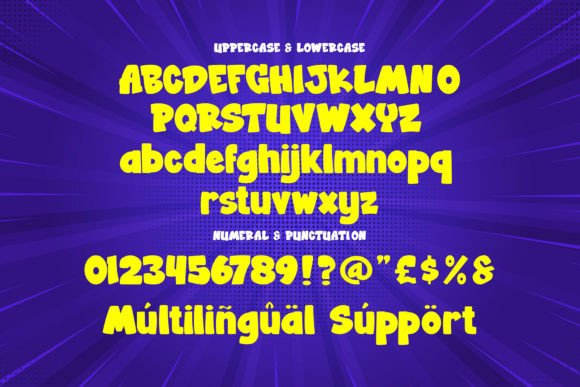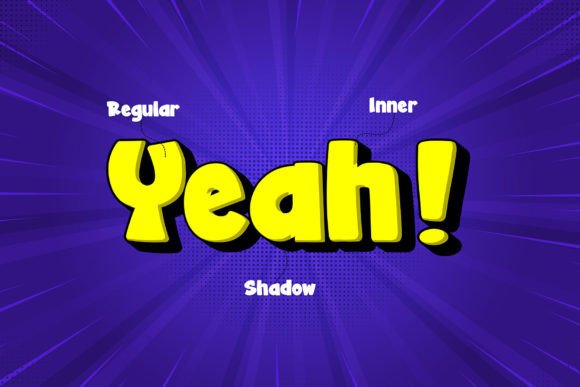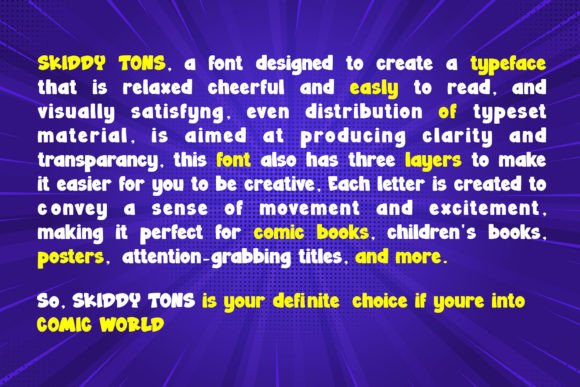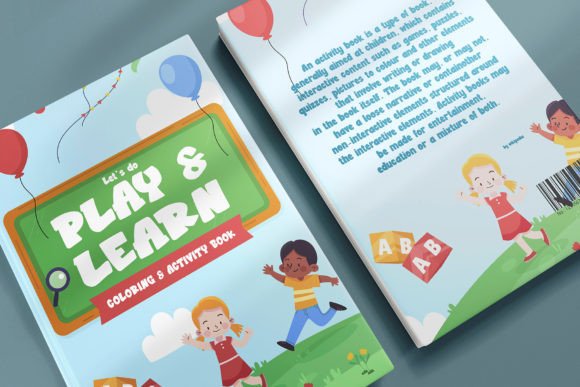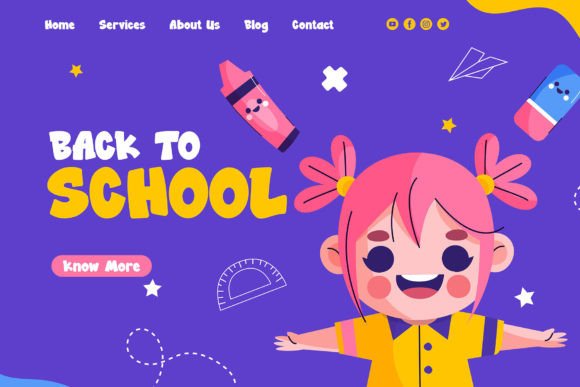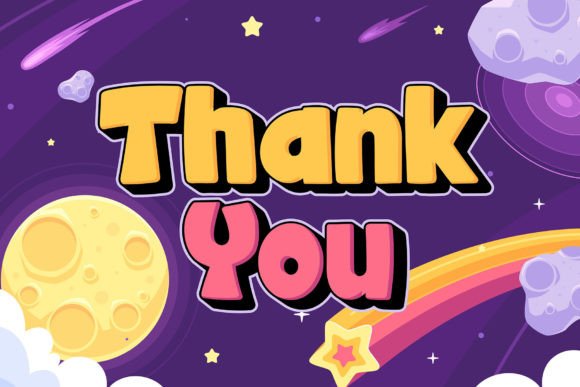
Introduction to Skiddy Tons Font
Do you remember the thrill of designing your first project, pouring over fonts and colors until the perfect combination popped into place? For designers, there’s nothing quite like that moment of creative triumph. But sometimes, it’s the little things that make all the difference – like stumbling upon the perfect font to bring your vision to life. Enter Skiddy Tons Font, a delightful display font that’s sure to capture the imagination and spark your creativity.
With its irresistible 3D effect, featuring a shadow alongside inner characters, Skiddy Tons Font is the perfect choice for designers seeking a high-quality design resource that adds a playful, energetic touch to their projects. Whether you’re working on a children’s book, crafting a poster, or creating birthday invitations, this font is a valuable addition to your design arsenal, offering a transparent background that lets your creativity shine.
As a free download, Skiddy Tons Font is an absolute must-have for designers looking to elevate their creative projects with a dash of fun and liveliness. Its eye-popping style is sure to grab attention and spread joy, making it the quintessential choice for designers who want to make a lasting impression.
Key Features of Skiddy Tons Font
- High-quality font design with a unique, playful style, ideal for creative projects.
- Includes transparent background option, allowing for seamless integration into various design elements.
- Designed to be scalable, with a high resolution of 300 DPI, suitable for use in various sizes and applications.
- Skiddy Tons Font is a versatile design resource, perfect for adding a touch of personality to creative projects, from digital art to print materials.
Honest Review: Skiddy Tons Font
As a designer, I’m always on the lookout for new and exciting design resources to enhance my creative projects. The Skiddy Tons Font caught my eye, and I decided to give it a try.
What works well with the Skiddy Tons Font is its high quality and unique aesthetic. The font is a great addition to any design project that requires a playful and whimsical touch. The transparent background makes it easy to integrate into your design, and the free download is a definite plus.
Here are some of the key features that I like about the Skiddy Tons Font:
- Unique aesthetic
- May not be suitable for formal or professional projects
- Some characters may not be fully compatible with certain fonts or software
Overall, I think the Skiddy Tons Font is a great addition to any design library. While it may have some limitations, its unique design and high quality make it a great choice for creative projects. ✨
Common Use Cases for Skiddy Tons Font
Skiddy Tons Font is commonly used in graphic design, digital art, and creative writing projects. Its unique style and transparent background make it a popular choice for designers looking for a high-quality font.
Tips for Getting the Most Out of Skiddy Tons Font
To get the most out of Skiddy Tons Font, experiment with different font sizes, colors, and combinations. The font’s versatility allows you to create unique and eye-catching designs that will stand out from the crowd.